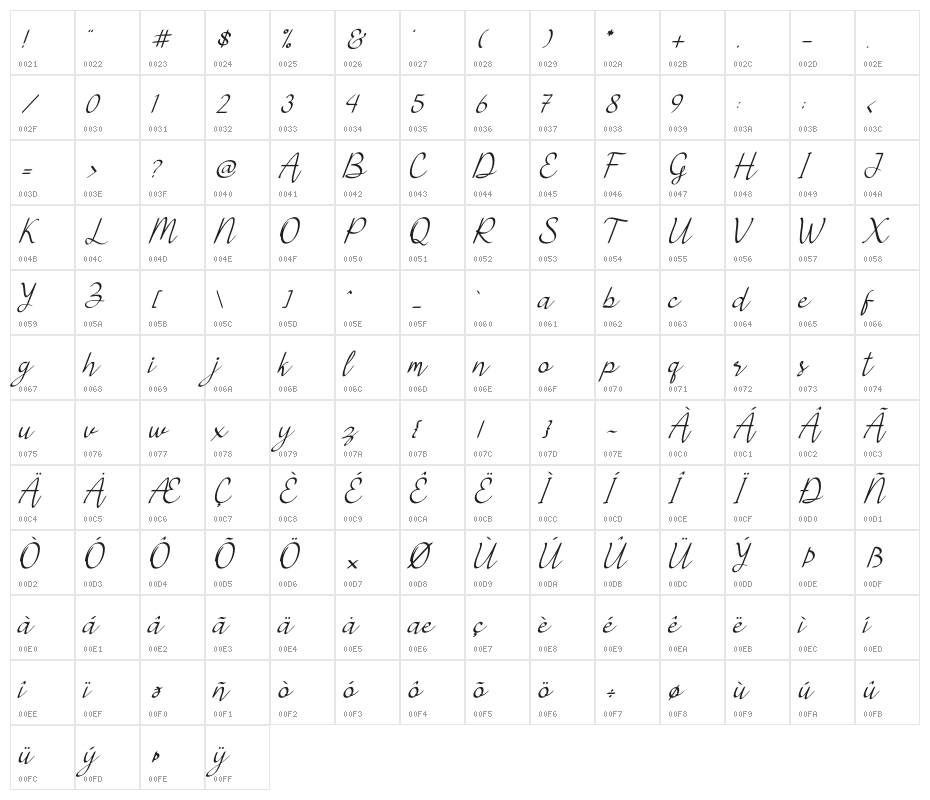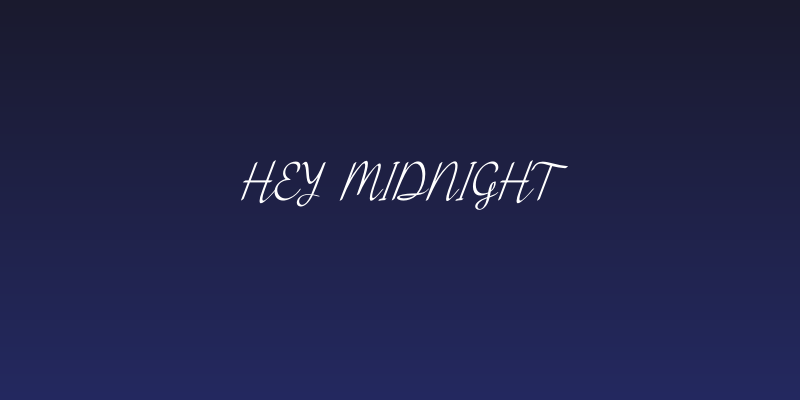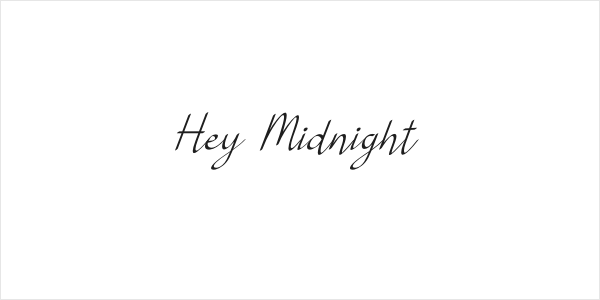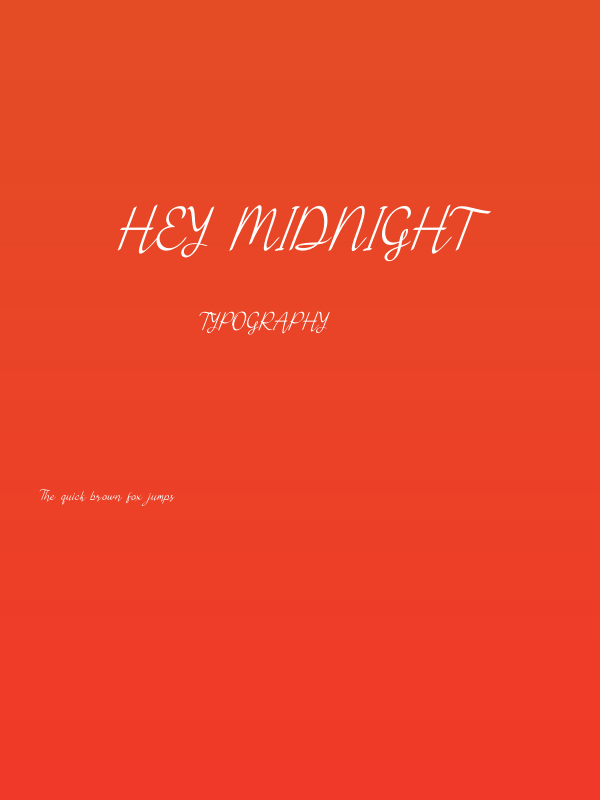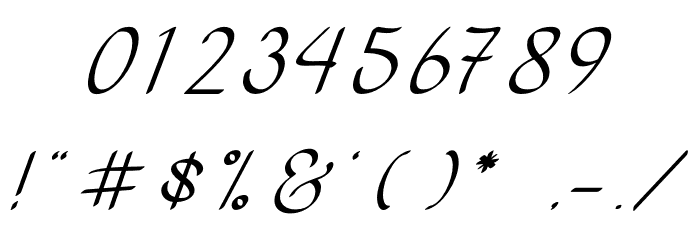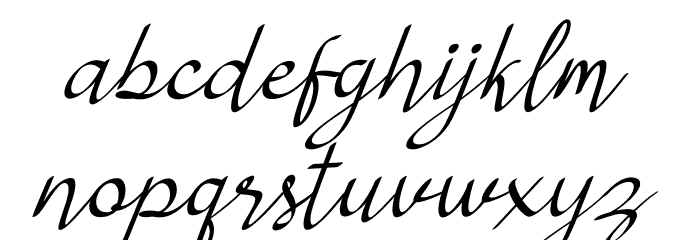
Hey Midnight Font
Hey Midnight Description
This font exudes a sophisticated and elegant script style, characterized by its fluid and graceful letterforms. The uppercase letters are tall and slightly slanted, with smooth curves and delicate strokes that give a sense of movement and flow. The lowercase letters maintain a consistent style, featuring elongated ascenders and descenders that enhance the font's overall elegance. The numerals are well-proportioned and align harmoniously with the alphabet, while the special characters are crafted with the same attention to detail, ensuring a cohesive appearance. This font's refined aesthetic makes it suitable for projects that require a touch of class and sophistication.
| Proposed Projects | Ideal for wedding invitations, elegant branding, personal stationery, and high-end product packaging. |